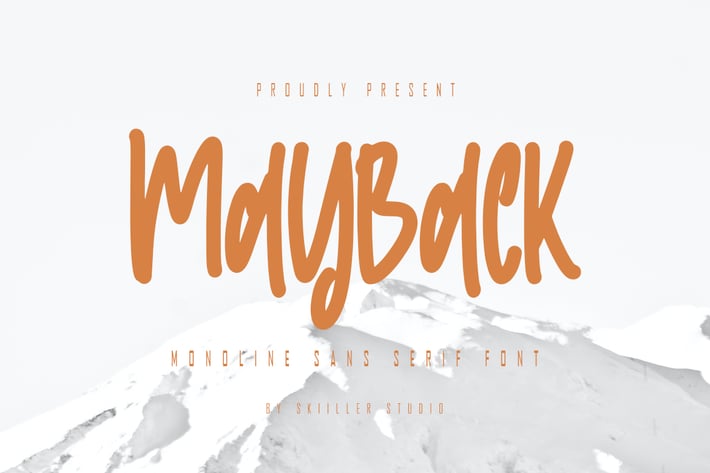
Mayback - Monoline Sans Serif Font
Mayback Sans Serif Font. It looks beautiful on a variety of designs requiring a personalized style, such as wedding invitations, thank you cards, weddings, greeting cards, logos and so on. This font is PUA encoded which means you can access all of the glyphs and swashes with ease!